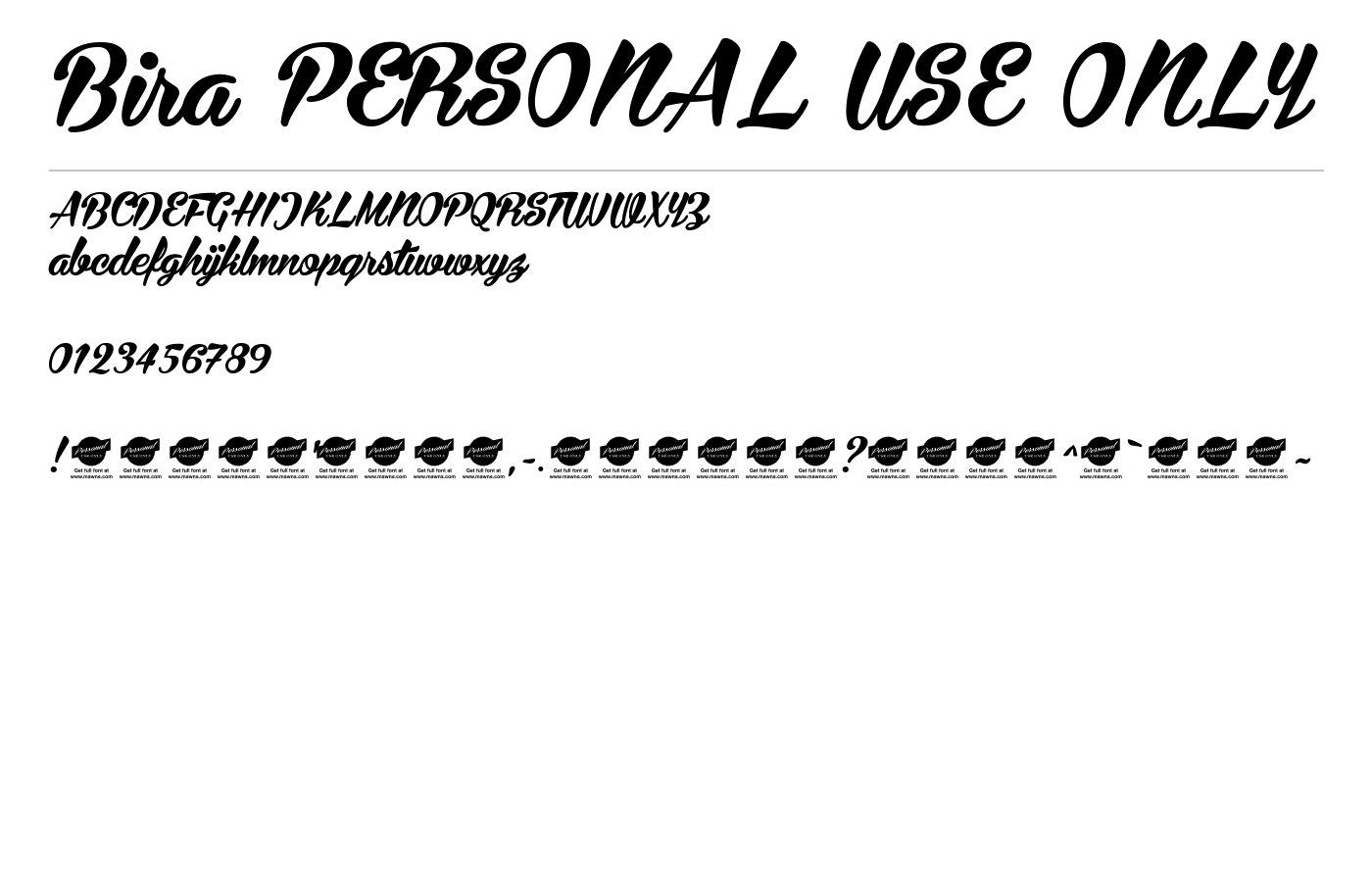
Bira is a stylish script font featuring smooth, flowing strokes with a moderate weight and a slightly condensed width that gives it an elegant yet energetic feel. Its letterforms have a charming hand-lettered quality with lively curves and distinctive details, making it ideal for playful, creative, and personal branding projects such as logos, invitations, and headlines where a warm and approachable touch is desired.
Bira PERSONAL USE ONLY Font